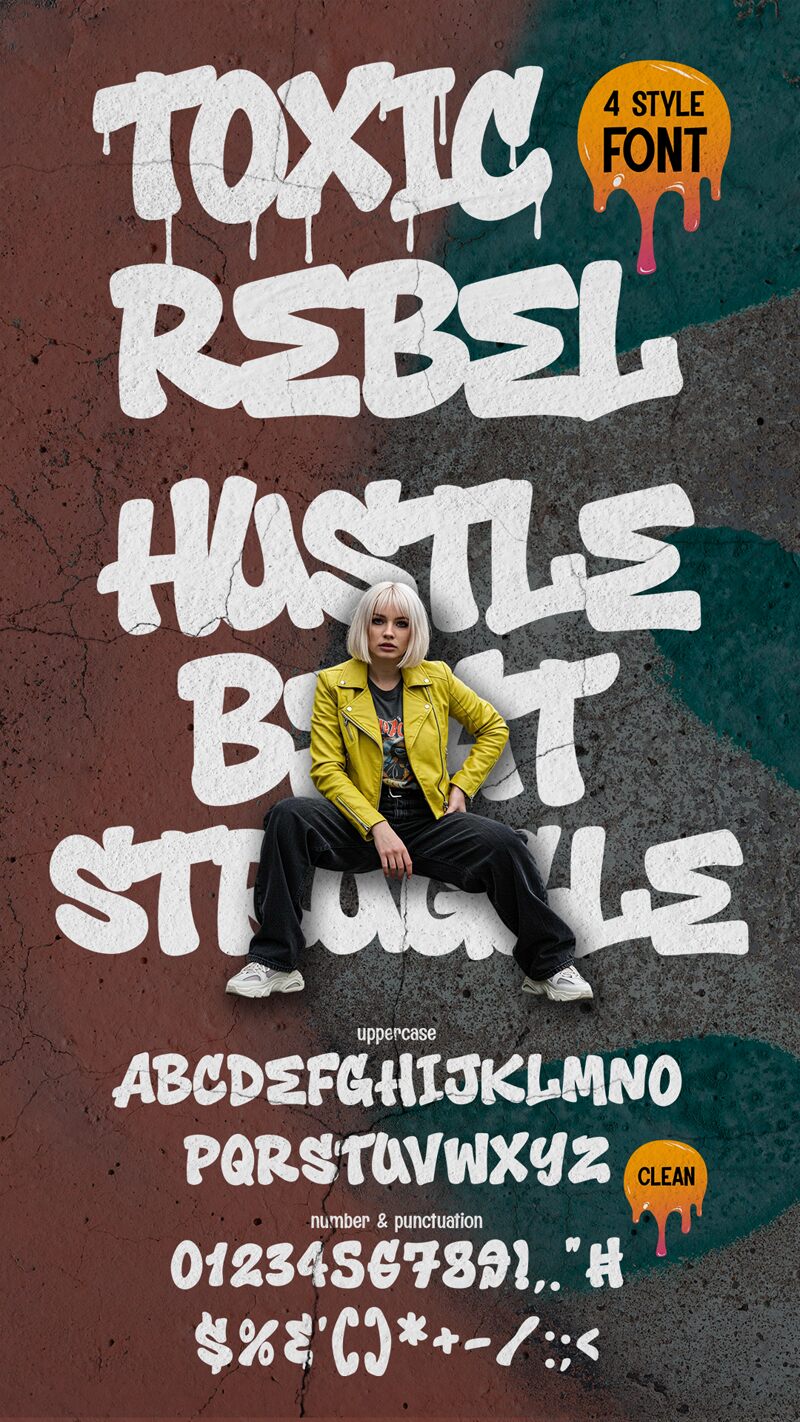
Toxic Rebel font family is a free graffiti-inspired display font family by Cikareotype Studio. It is inspired by the various types of urban writings usually written on walls with spray paint. What’s even more interesting, it’s a font to be enjoyed by all designs for personal usage. It is completed with standard glyphs with upper and lowercase letter variants.